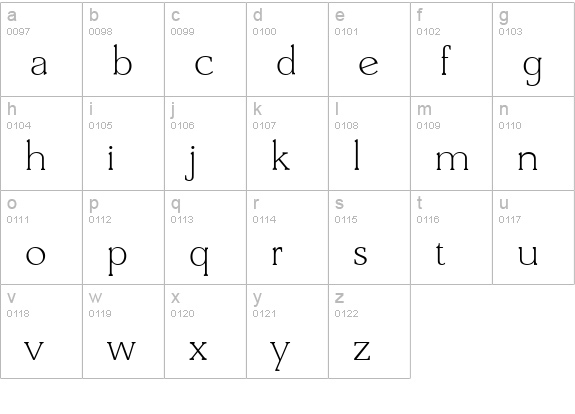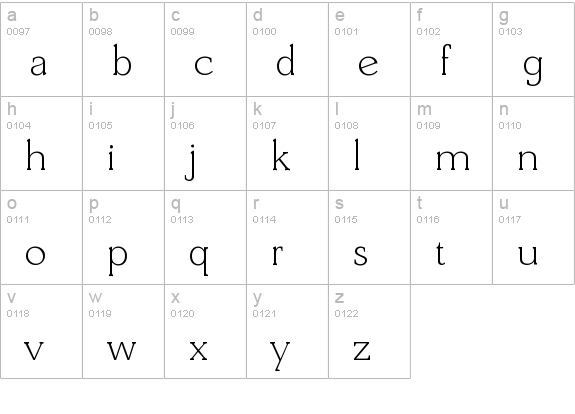
DerringerSerial-Xlight-Regular is the standard, neutral variant in the DerringerSerial typeface family \xE2\x80\x94 well suited to general body text, paragraphs, and standard typographic work.
DerringerSerial-Xlight-Regular font is a sleek and elegant typeface that exudes sophistication and style. Its delicate strokes and clean lines make it perfect for a wide range of design projects, from branding to editorial design. This font strikes the perfect balance between modernity and timeless elegance, making it a versatile choice for any creative endeavor. The best part? DerringerSerial-Xlight-Regular is available for free download at FontsMarket.com. This means you can enhance your projects with this stunning font without any cost, making it an accessible choice for designers of all levels. Don't miss out on the opportunity to add this beautiful typeface to your font collection today!